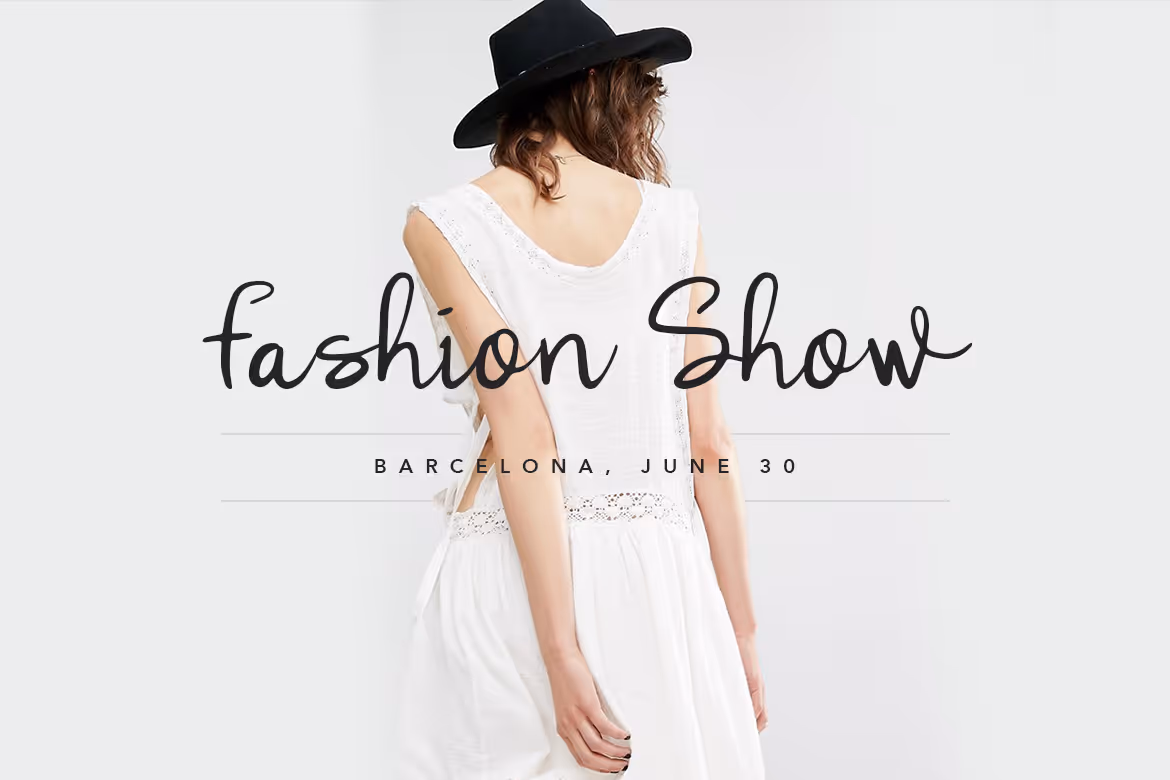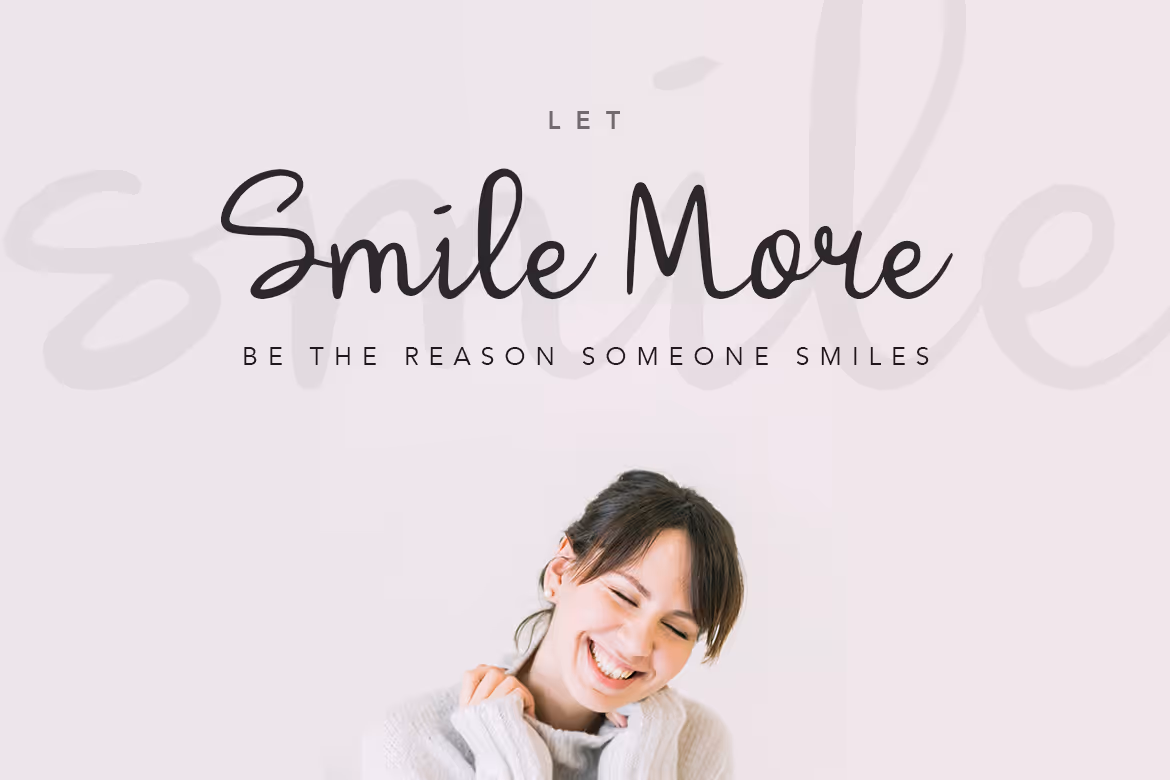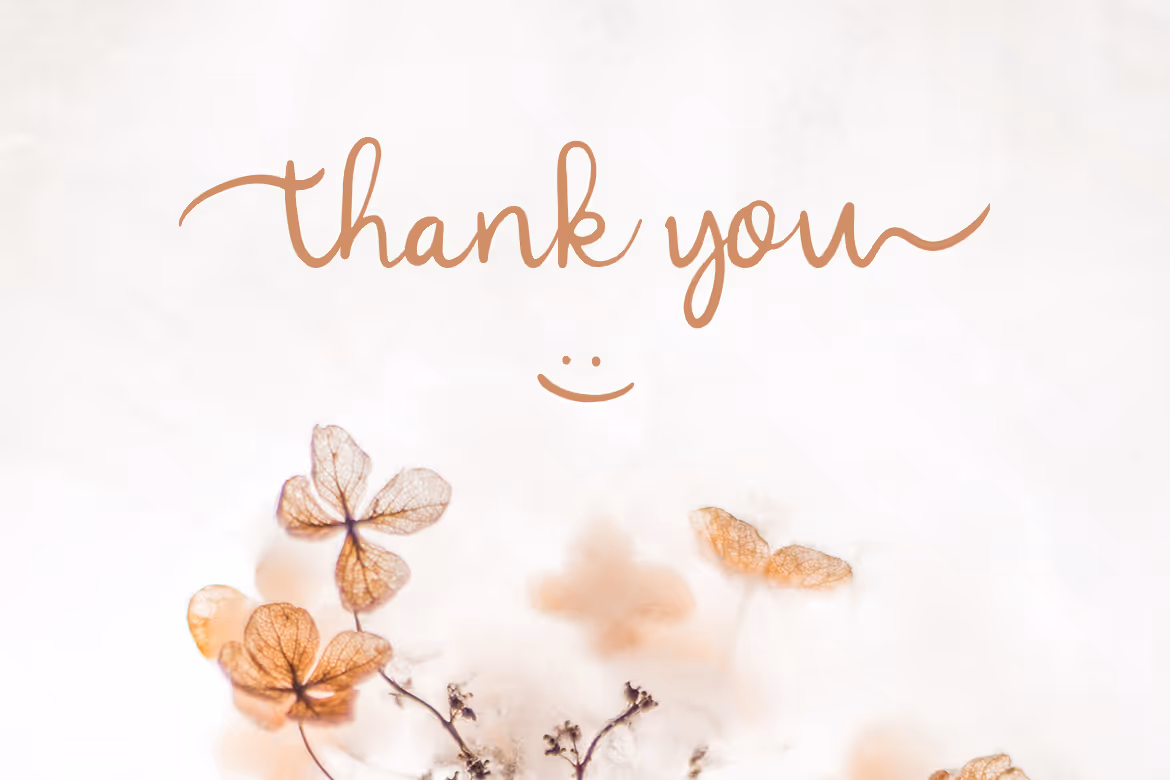
Create your creativity with words by using the lovely Lulla font, a handcrafted script font that is suitable for any kind of needs, such as quotes, wedding theme, book, banner, poster, promotion, print media, business cards, profile, fashion, make-up and many more. Make your project more stunning and eye-catching by using this beautiful, elegant and lovely font.
Every package of this font consists of a set of alphabets in uppercase and lowercase letters, a complete set of numbering and punctuation. From the Lulla font package, you also will get some ligatures to give a more dramatic and stylish effect to your writing. The font is available in OTF format file only.